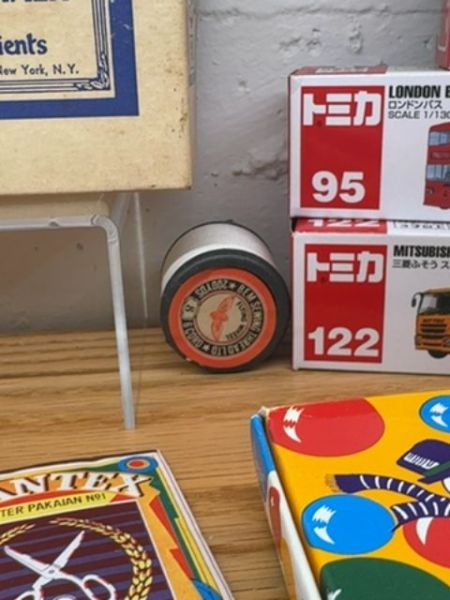
Tomica
Toy model vehicles that are highly detailed and often built to scale, used for both play and collection.
1970
The typography on the packaging uses a bold, sans-serif font that is both modern and attention-grabbing. The use of red color for the text against a white background ensures high visibility and contrast, making the information easy to read at a glance.
The packaging for Tomica is compact and efficient, featuring a predominantly white background with bold red accents and text. The numbers and image of the vehicle model stand out, making it easy for collectors and buyers to identify the product inside quickly.
- Tomica is a well-known brand of die-cast toy vehicles.
- These models are popular among both children and adult collectors.
- The brand often releases limited edition models, increasing their collectible value.